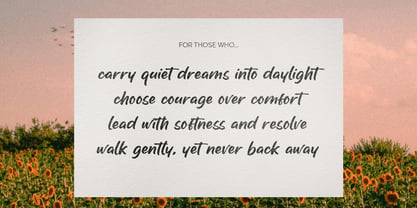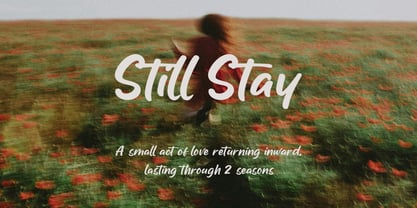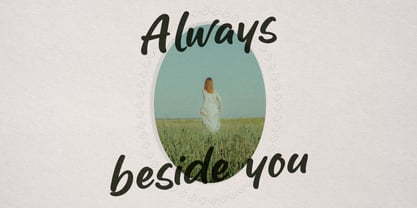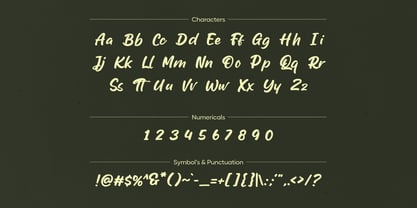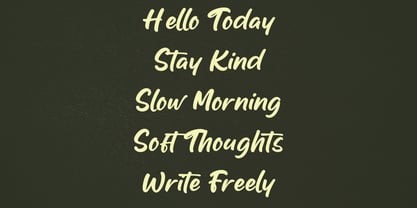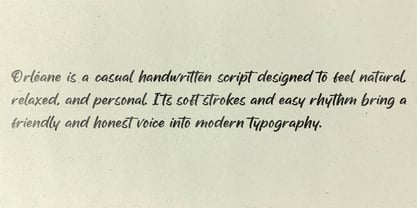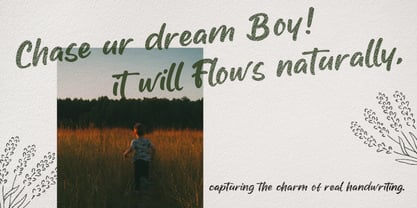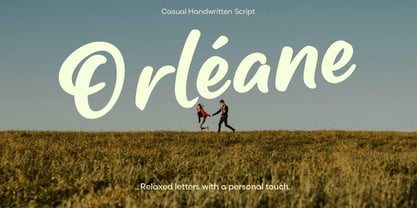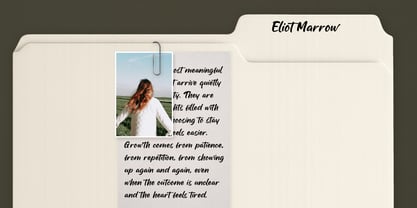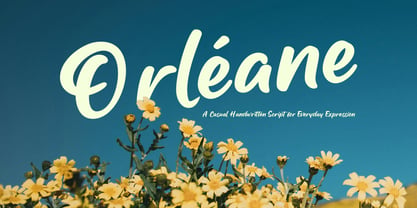
Orléane
von Inviline
Die Schriftfamilie Orléane wurde von Virgiawan Listanto entworfen und von Inviline veröffentlicht. Orléane enthält 1 Stile. Mehr über diese Familie
Orléane is a casual handwritten script font designed to feel natural and approachable, making it perfect for modern projects that value softness and sincerity. With gentle strokes and a relaxed rhythm, it captures the charm of real handwriting, bringing a warm, human touch to your typography. What you get includes uppercase and lowercase characters, numerals, punctuation, and multilingual support—crafted to flow easily across brand identity, product packaging, journaling titles, lifestyle quotes, and greeting cards. Orléane is the ideal font for designs that seek friendliness, authenticity, and personal connection.